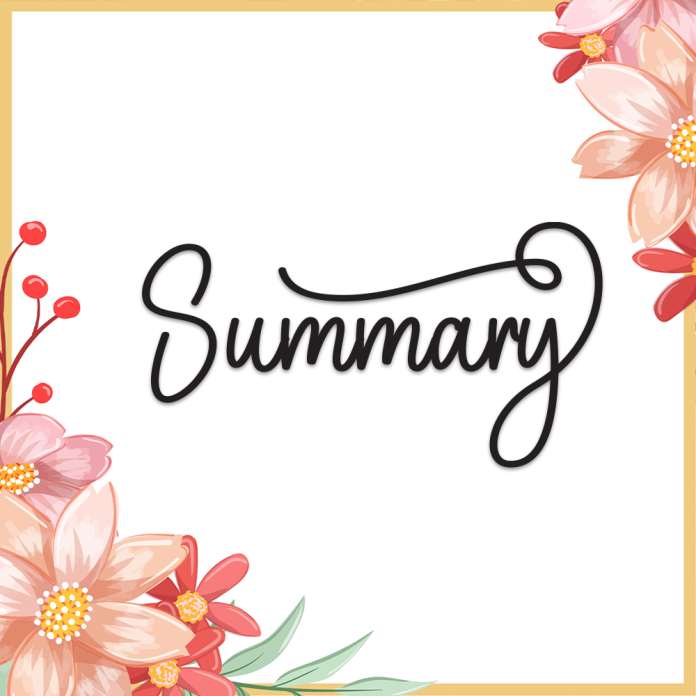
Summary is a clean and graceful handwriting font, designed to look like natural pen strokes with a touch of elegance. Its smooth flow makes it perfect for personal and professional creative projects.
Elegant and natural handwritten style
Ideal for invitations, logos, quotes, and personal branding
Balanced letter spacing for easy readability
Includes uppercase, lowercase, numbers, and punctuation
Add a personal yet sophisticated touch to your designs with Summary.